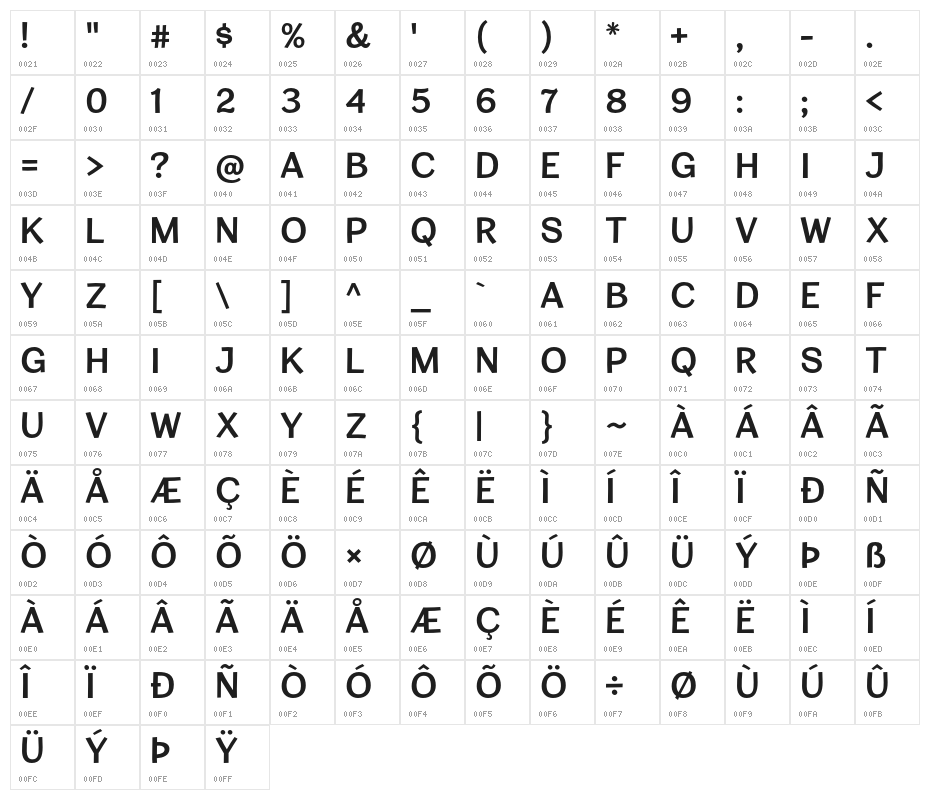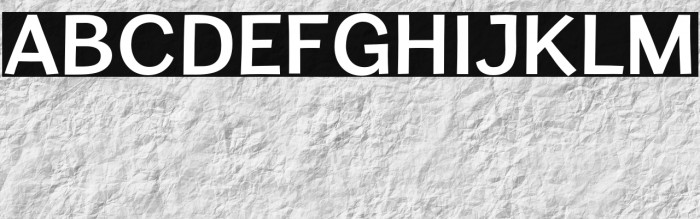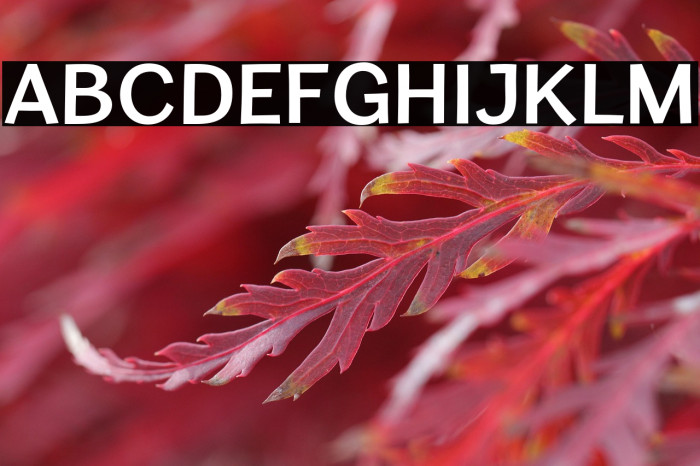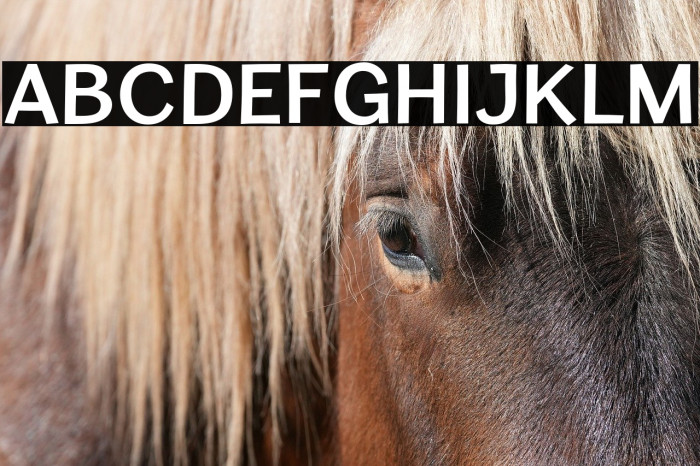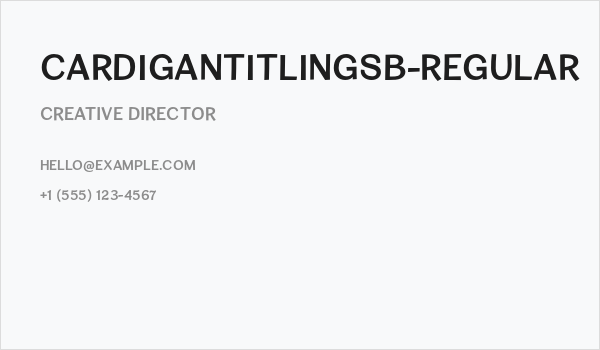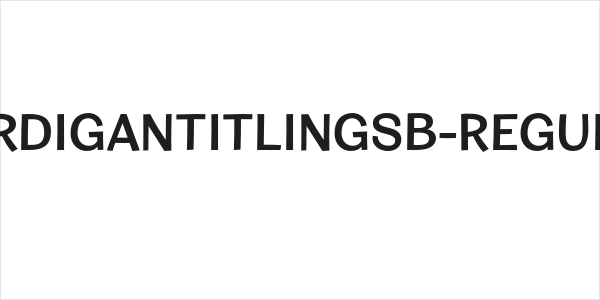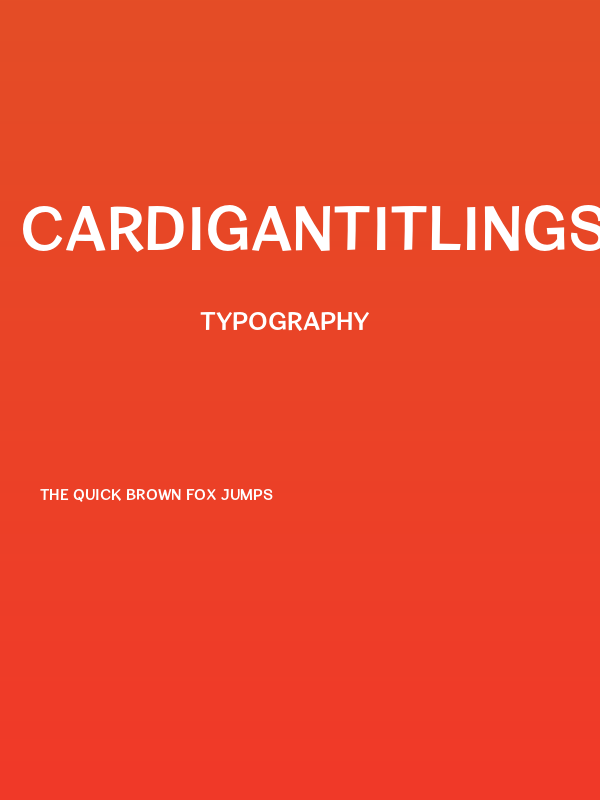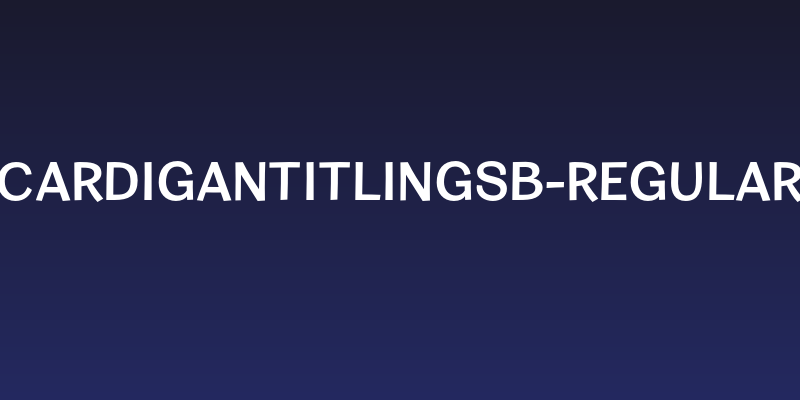
CardiganTitlingSb-Regular Font
CardiganTitlingSb-Regular Description
This font features a bold and modern sans-serif style with clean lines and a strong presence. The uppercase letters are uniform in height, providing a sense of stability and balance. The numerals are clear and easy to read, making them suitable for various applications. Special characters are well-defined, maintaining the font's overall aesthetic. The design is versatile, suitable for both digital and print media, offering a contemporary look that can enhance any project.
| Proposed Projects | Ideal for branding, advertising, headlines, and digital media projects. |